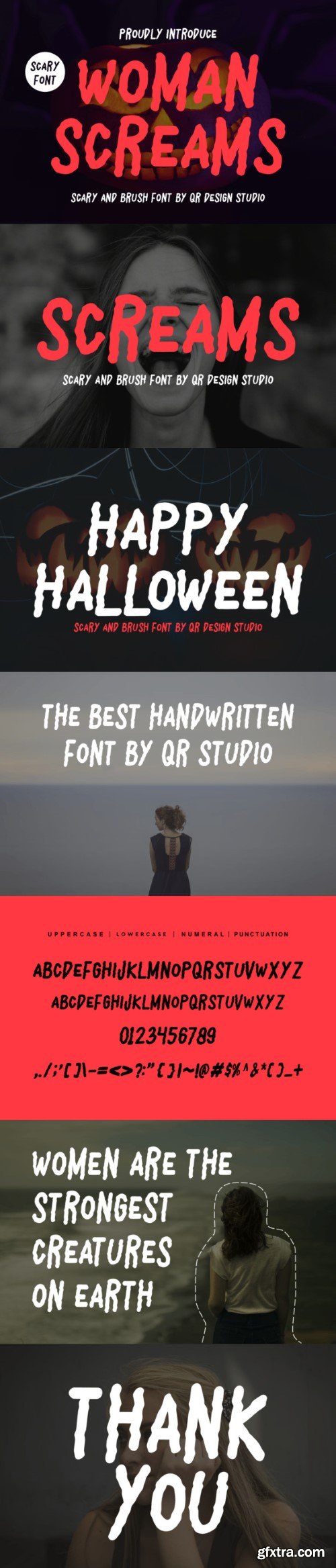
尖叫的女人字体
Woman Screams is a bold and authentic display font, suitable for a variety of branding projects like logos, posters, Halloween cards, invitations, decorations and so much more.